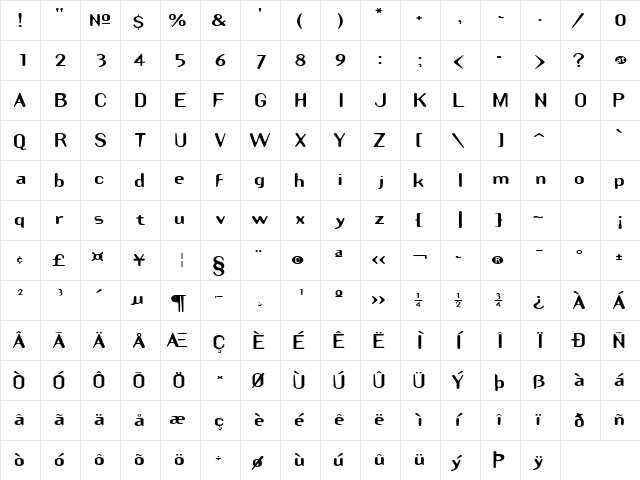
DraftPlateExtended Black
Design Context for DraftPlateExtended Typeface
DraftPlateExtended offers clean, dependable letterforms without strong stylistic allegiance, making it a practical choice for designers who need flexibility.